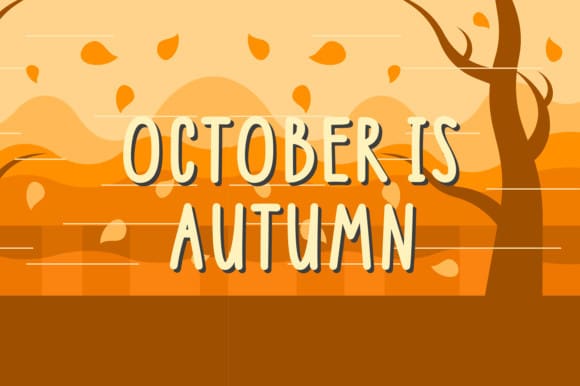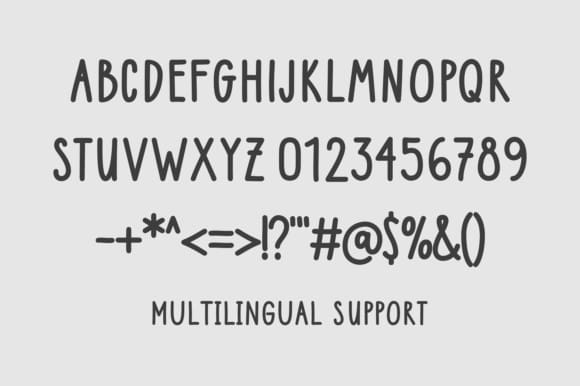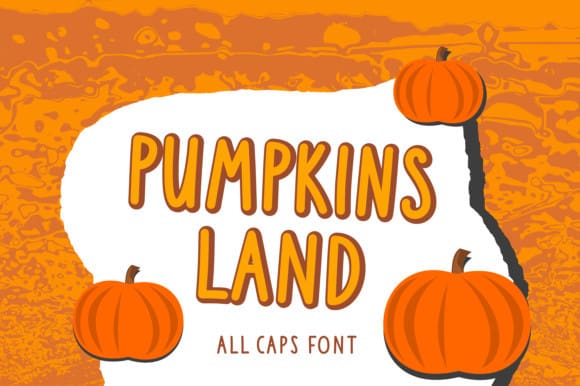
Pumpkins Land Font
Pumpkins Land Font is a simple, tall, all-caps display typeface. It’s crafted with a handwritten feel, perfect for creating social media posts, branding, quotes, logos, packaging, mugs, totes, t-shirts, posters, stickers, key chains, or anything for your fun project!